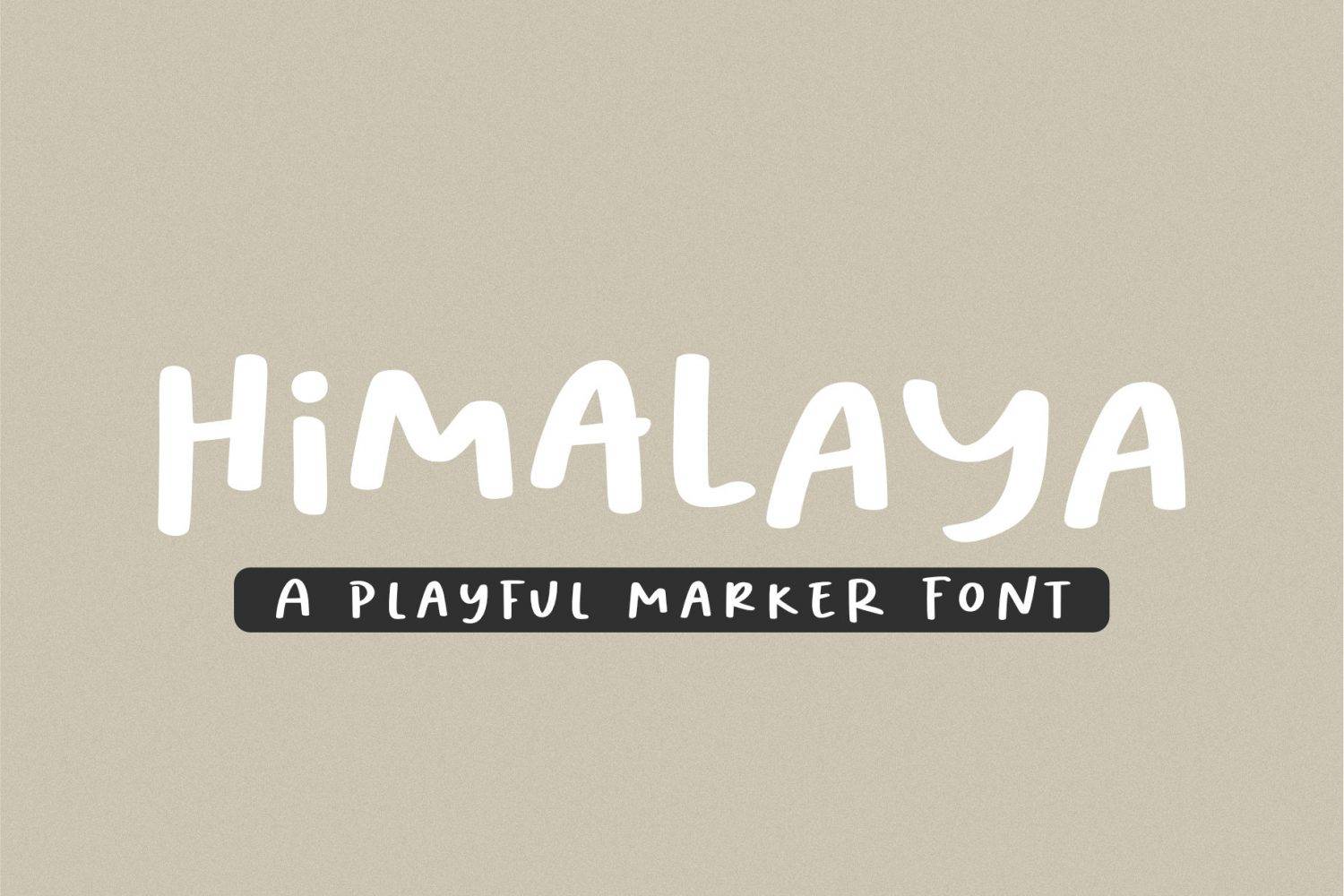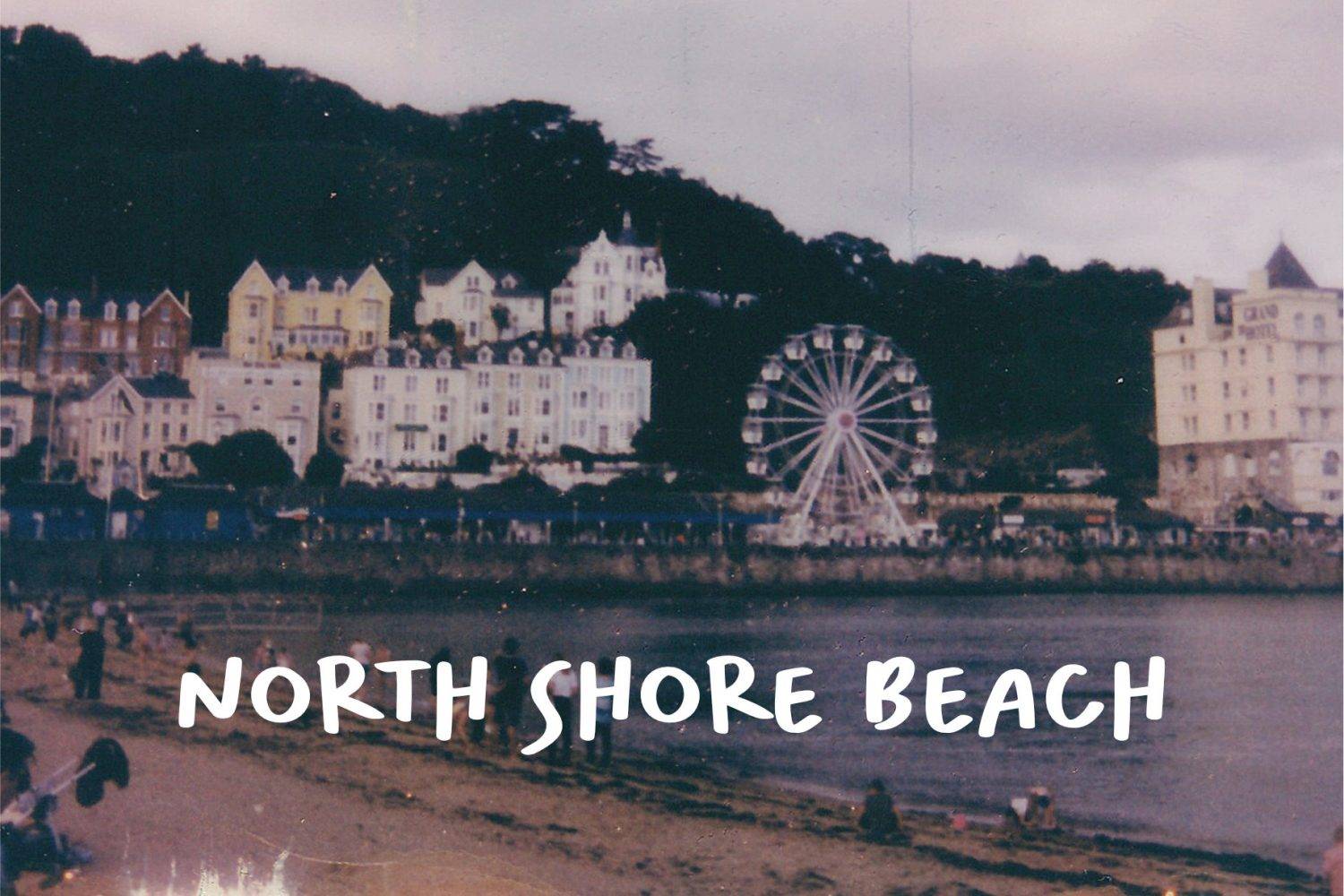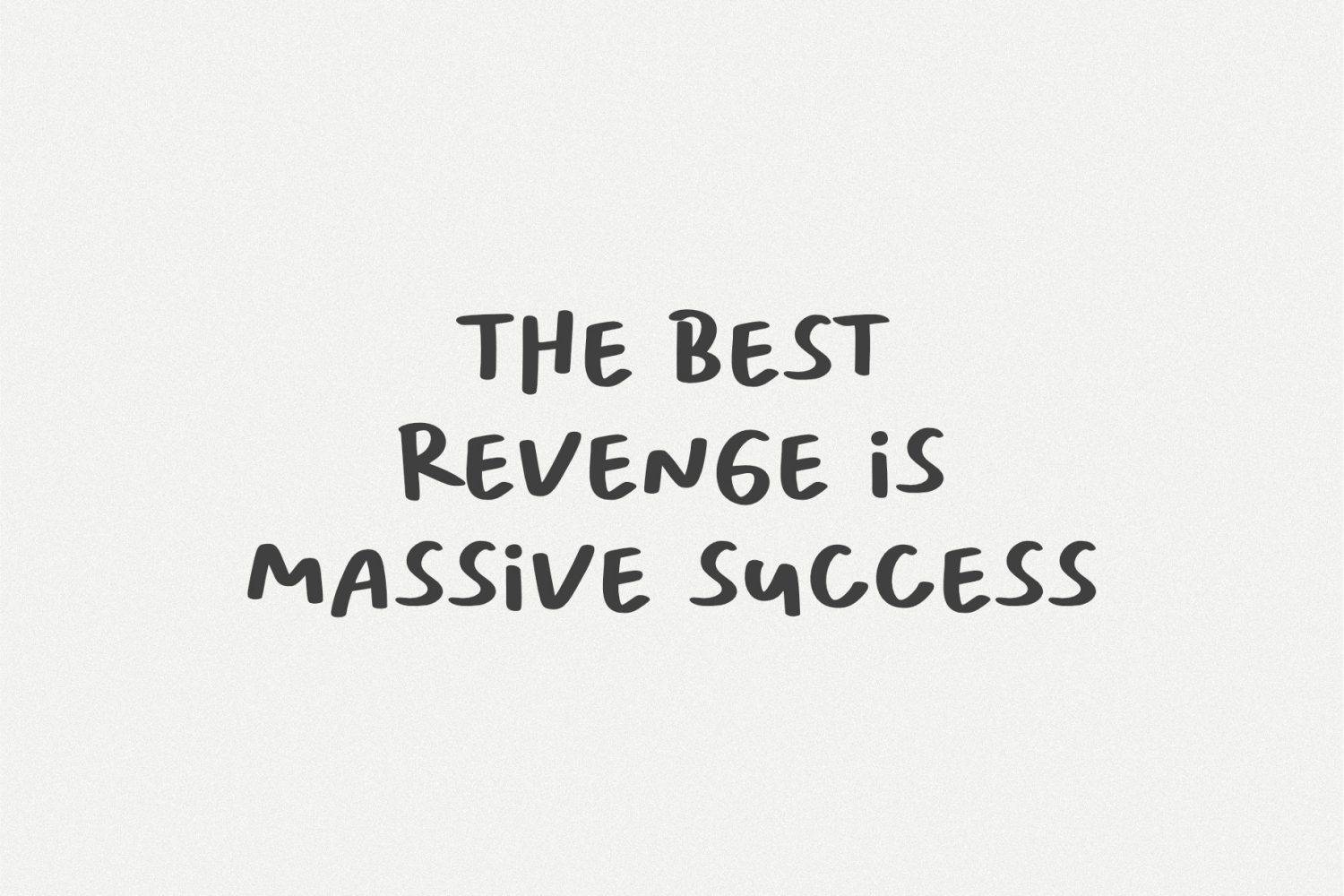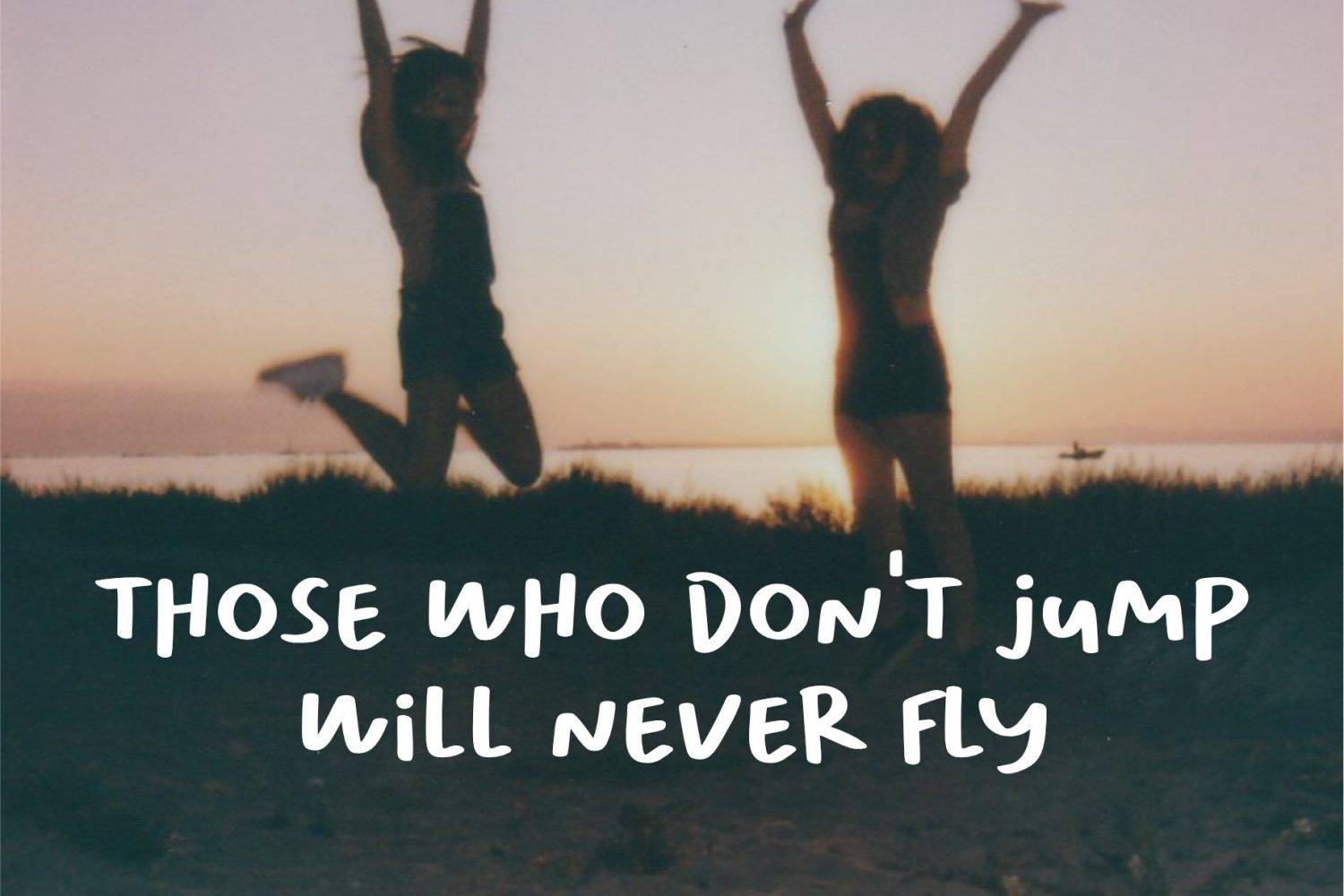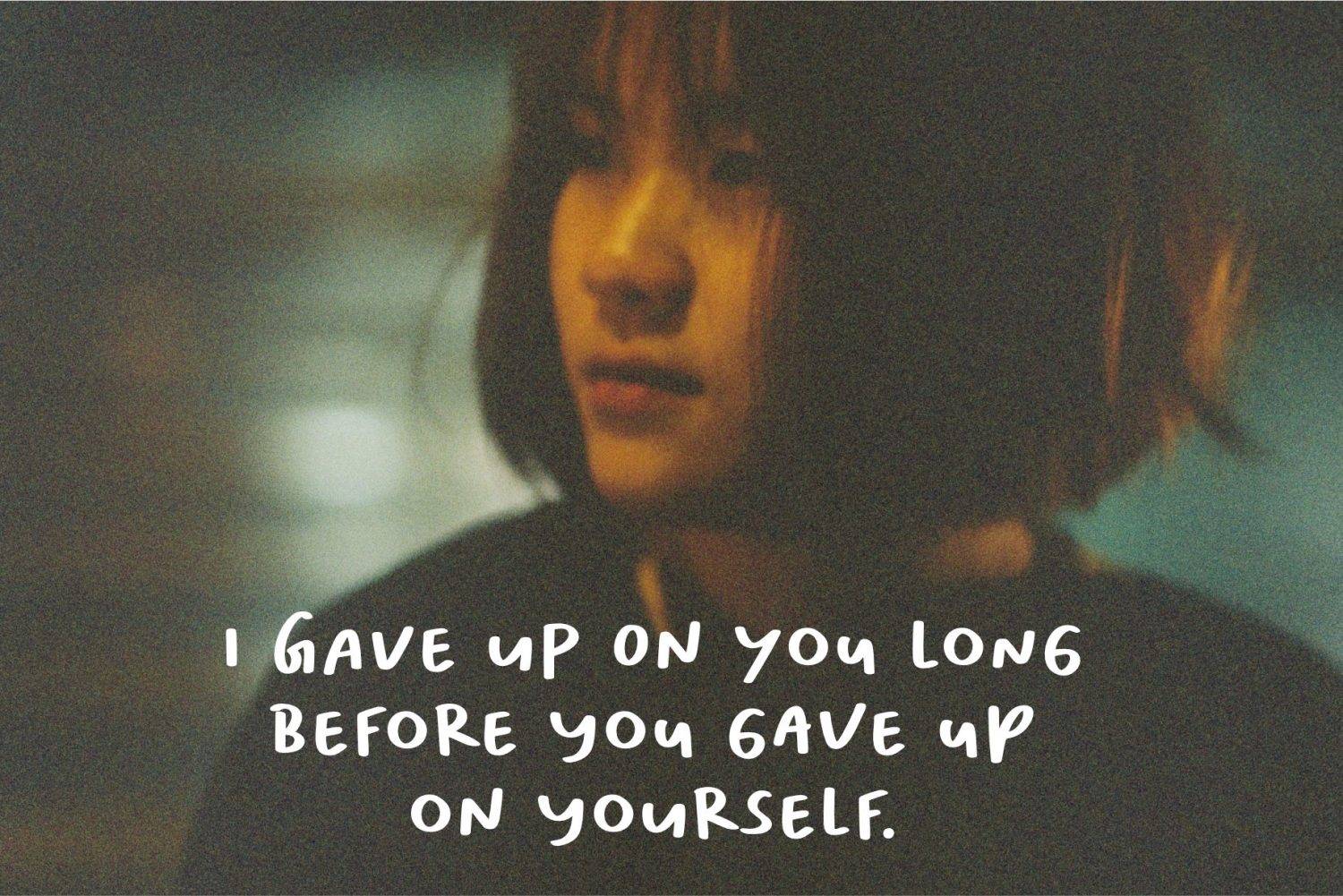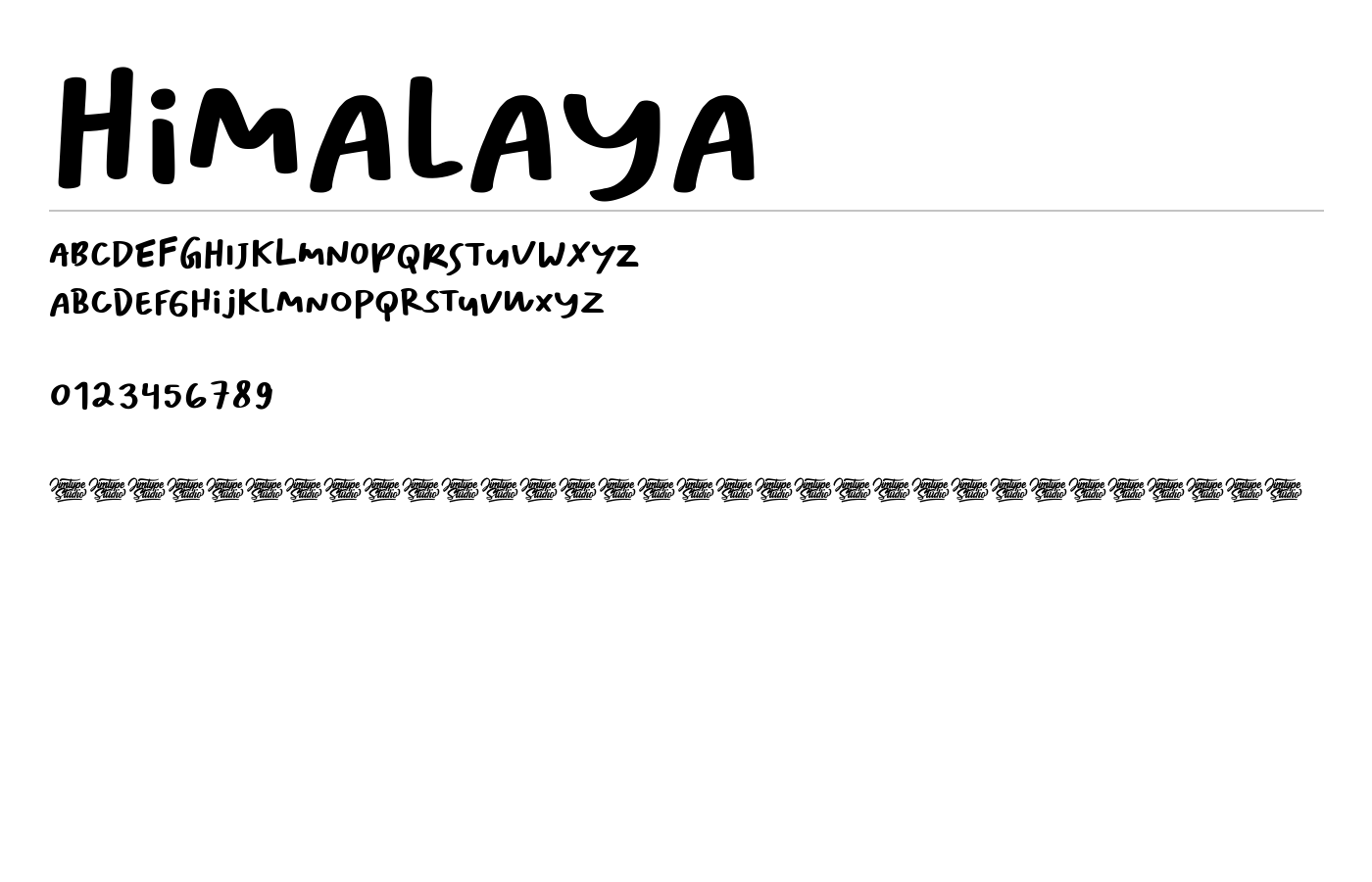
Himalaya is a playful and casual hand-drawn sans serif font with a friendly, organic feel. Its irregular shapes and moderate weight make it perfect for informal designs, adding a warm and approachable touch to branding, packaging, or headlines where a charming, handwritten style is desired. This font works well in settings that seek personality and a relaxed, creative vibe.
Himalaya Font
About Himalaya Font
| Designer | Jimtype Studio |